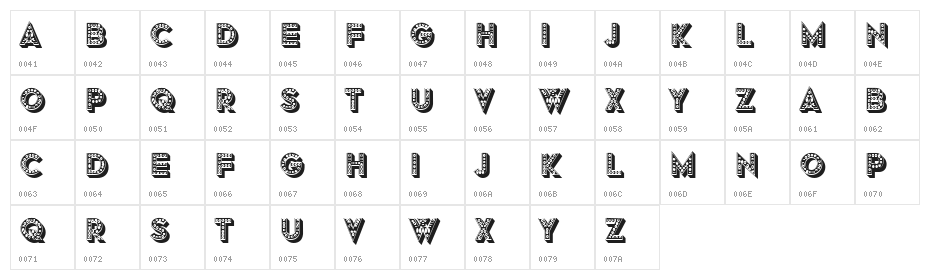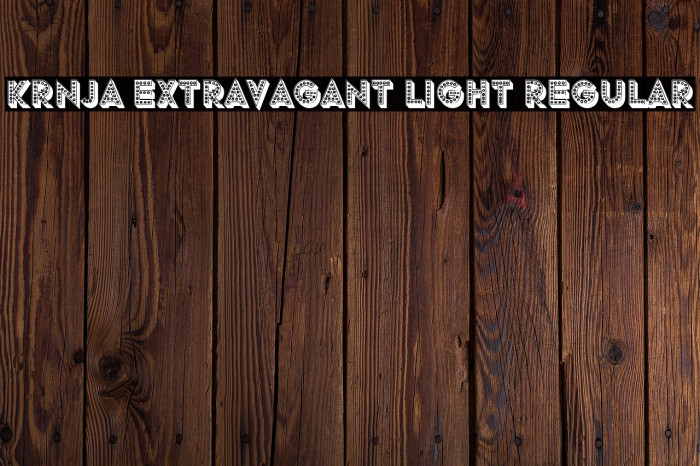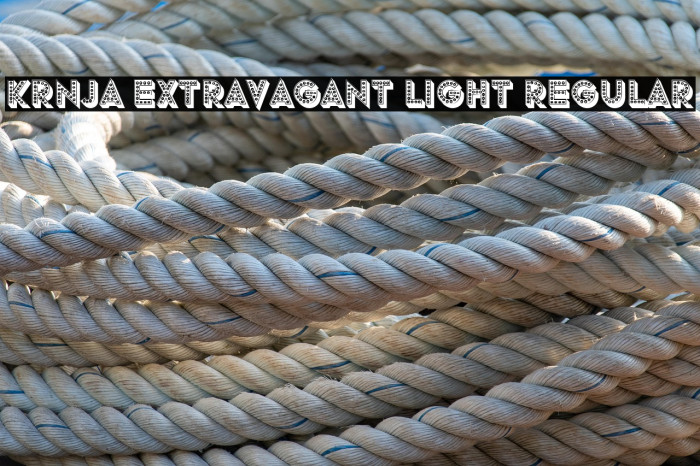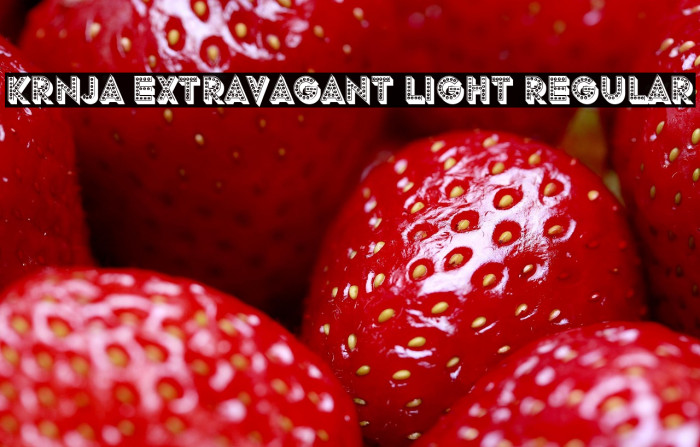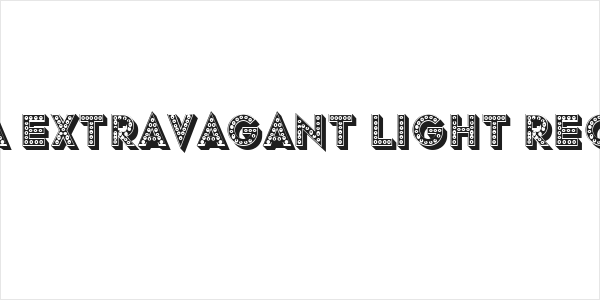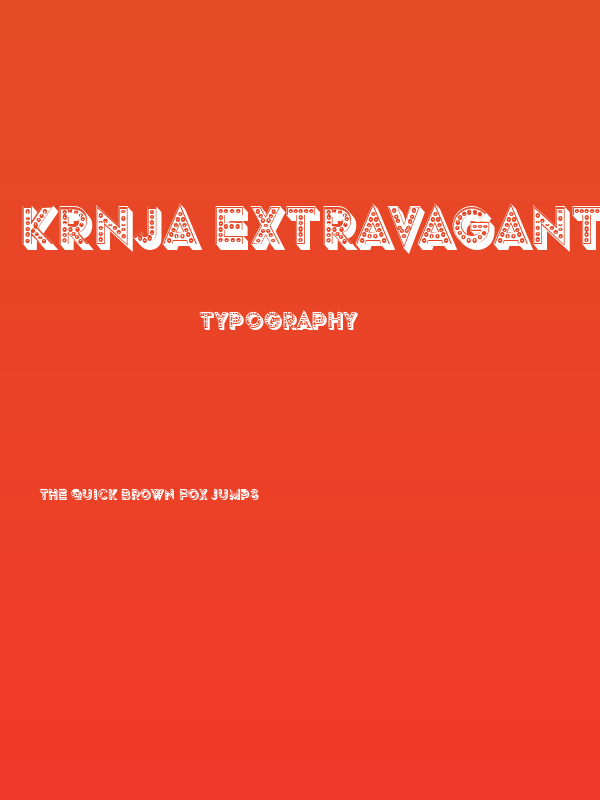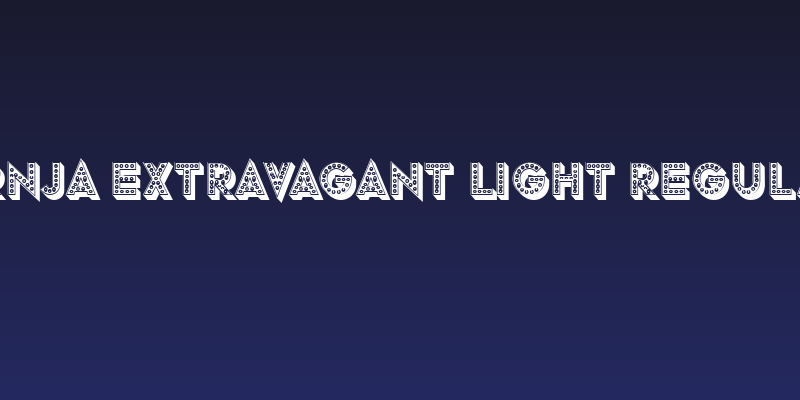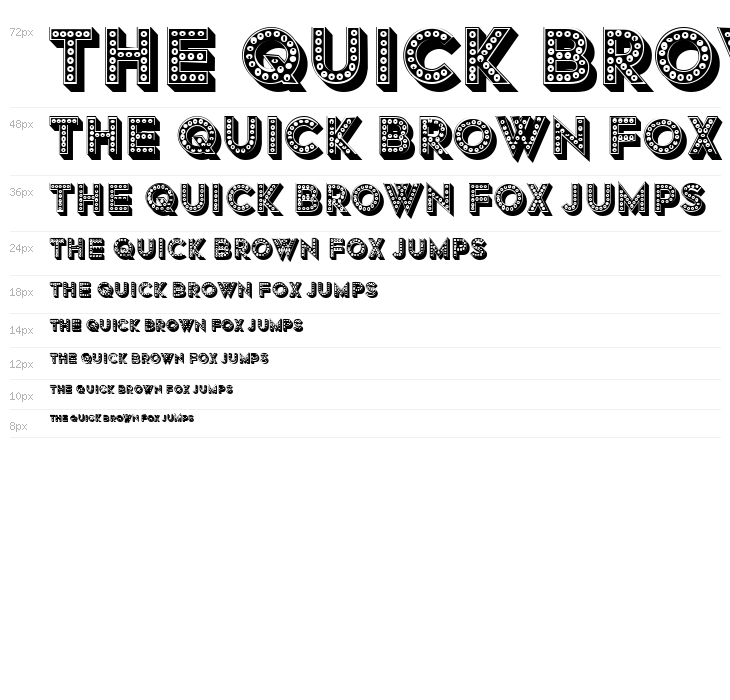
Krnja Extravagant Light Regular Font
Krnja Extravagant Light Regular Description
This font features a bold, decorative style with a 3D effect, giving it a striking and eye-catching appearance. Each character is outlined with a thick black shadow, enhancing the depth and dimension. The interior of the letters is filled with a pattern of circular dots, adding a playful and extravagant touch. The overall design is reminiscent of marquee lights, making it ideal for projects that require a dramatic and theatrical flair. The uppercase letters are uniform in height, with consistent spacing that maintains readability despite the intricate design.
| Proposed Projects | Ideal for use in posters, signage, event invitations, and any project needing a bold, theatrical touch. |